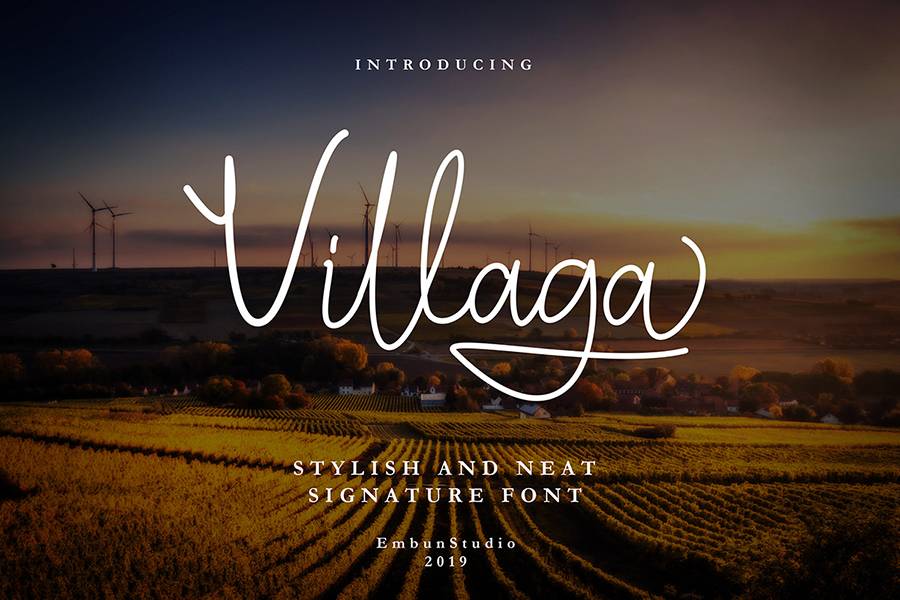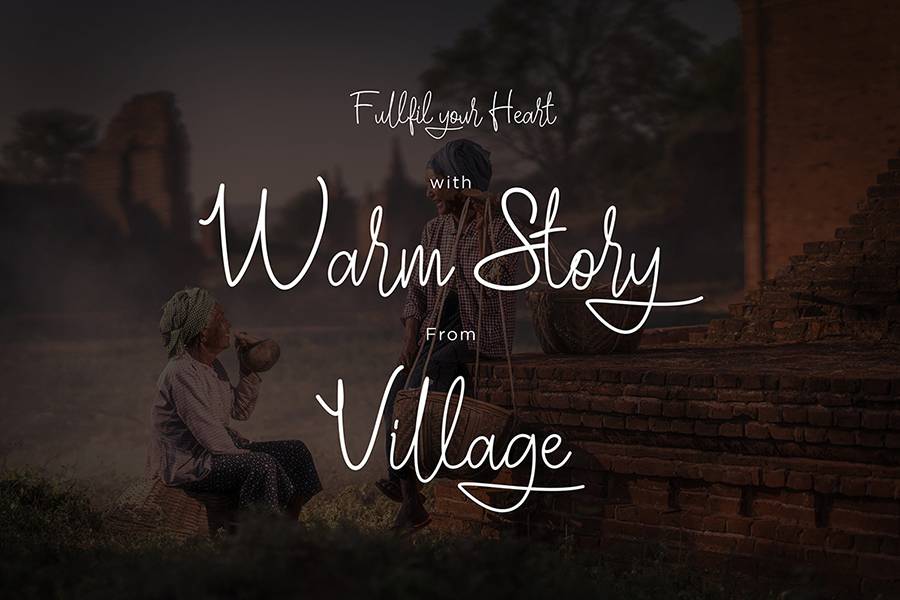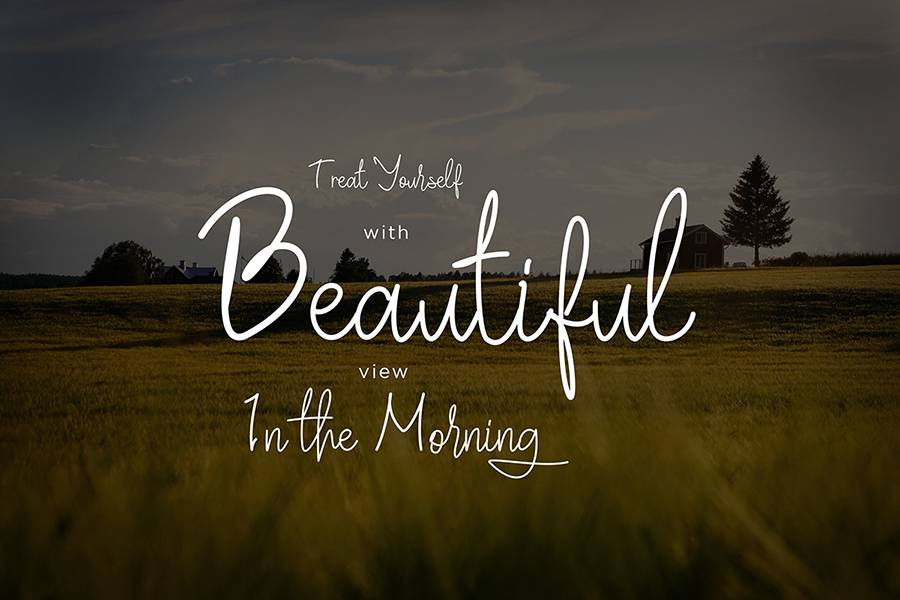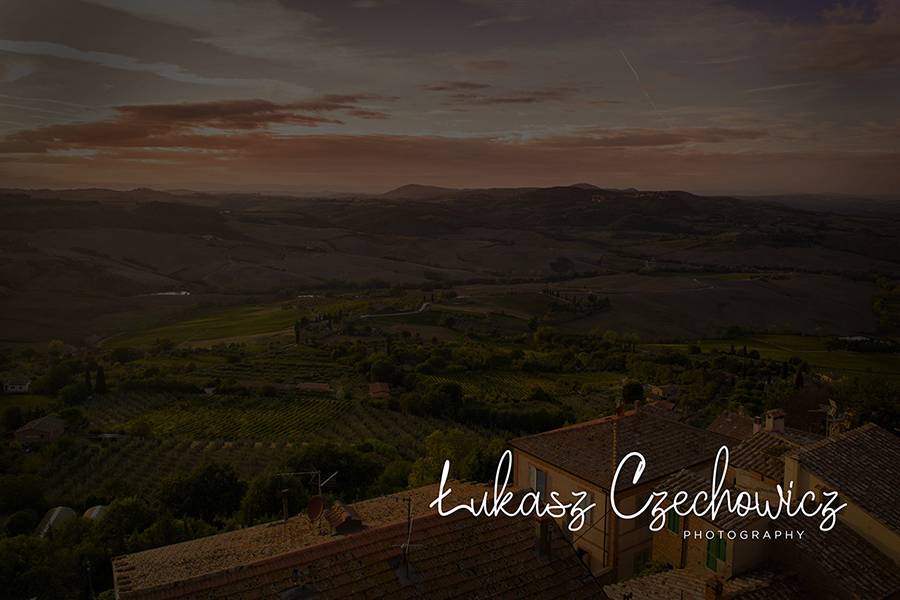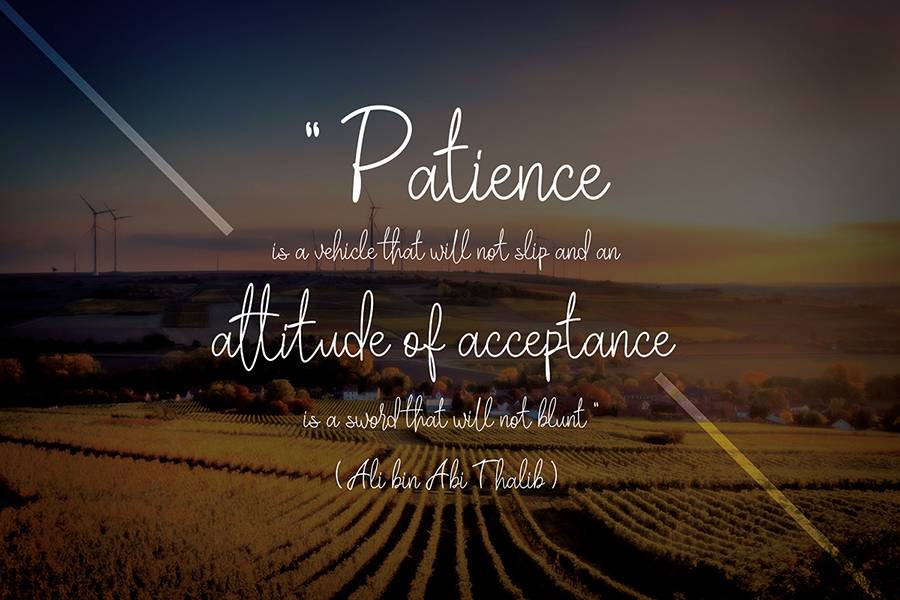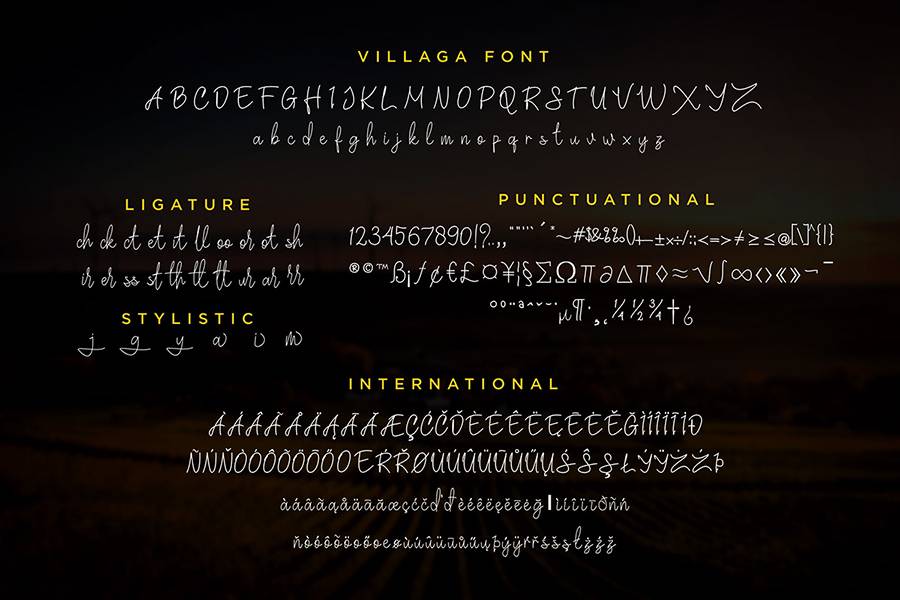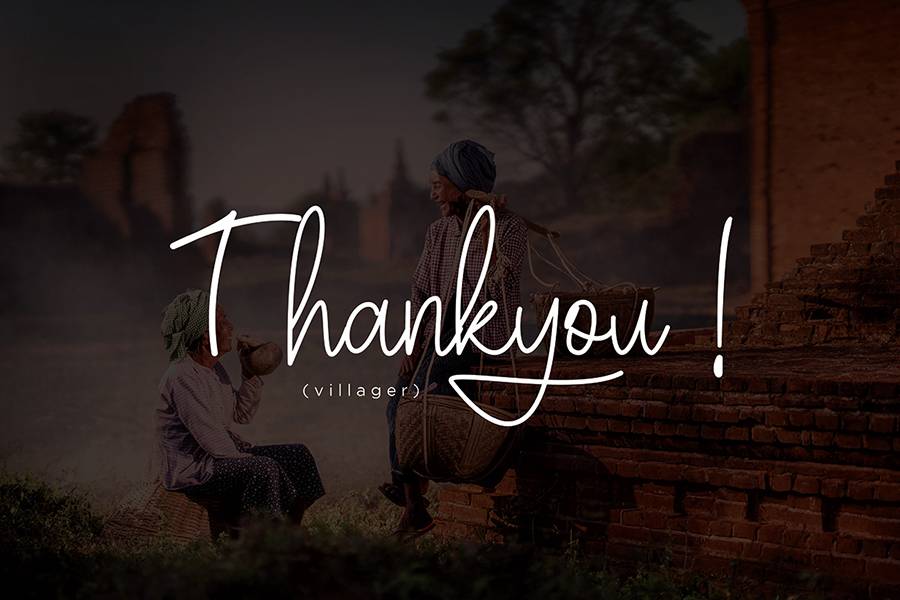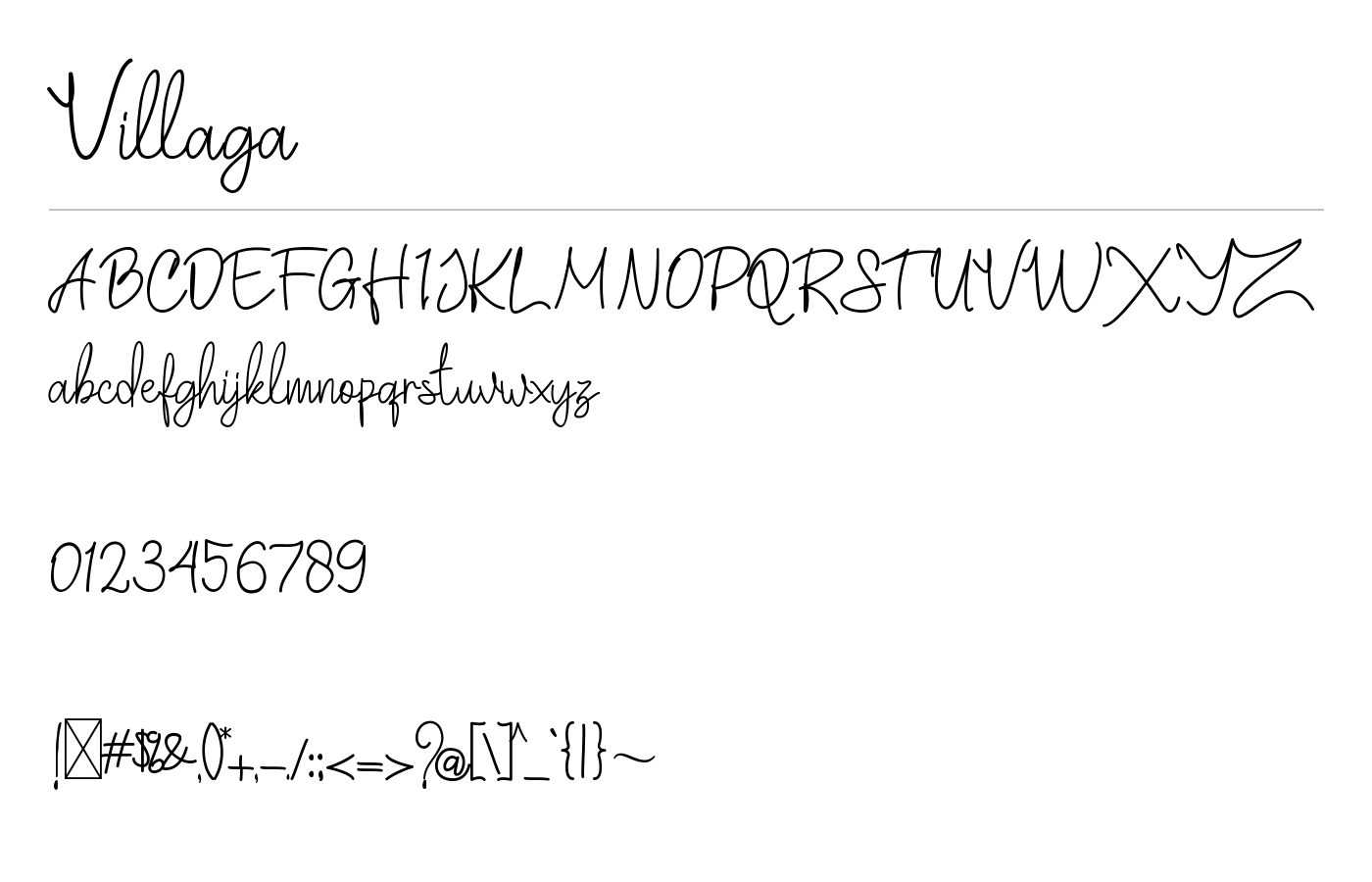
Villaga Stylish Signature Font is a delicate handwritten script that features thin, flowing lines with a casual yet elegant feel. Its tall, narrow letterforms and playful loops give it a personal, authentic signature style, making it ideal for branding, invitations, and creative projects that need a touch of charm and sophistication. This font works beautifully in contexts where a friendly, approachable, and stylish handwritten look is desired.
Villaga Stylish Signature Font
About Villaga Stylish Signature Font
| Font family | Villaga Stylish Signature Font |
| Designer | Embun Studio |